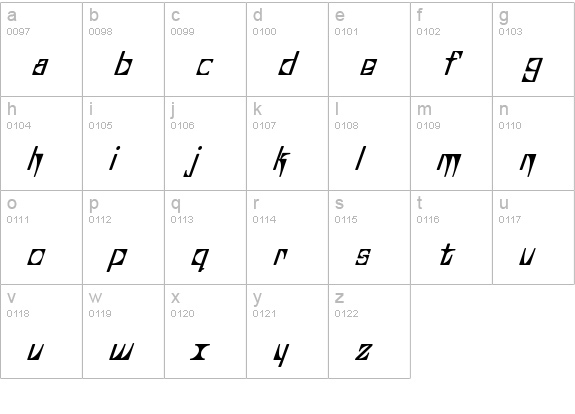
Glaukous - Aublikus Font Details
Glaukous - Aublikus font is a stunning and versatile typeface that seamlessly blends elegance with modernity. This font features a unique combination of sharp edges and flowing curves, creating a visually striking appearance perfect for a wide range of design projects. With its sleek and sophisticated design, Glaukous - Aublikus font is ideal for branding, advertising, packaging, and more. What sets Glaukous - Aublikus font apart is its remarkable versatility - it can be used for both headings and body text, making it a go-to choice for designers looking to create cohesive and visually appealing layouts. Whether you're working on a website, a poster, a logo, or any other design project, this font is sure to make a statement. And the best part? Glaukous - Aublikus font is completely free to download at FontsMarket.com. That's right, you can access this high-quality font at no cost, making it an invaluable addition to your design toolkit. So why wait? Elevate your designs with the sophisticated charm of Glaukous - Aublikus font today!